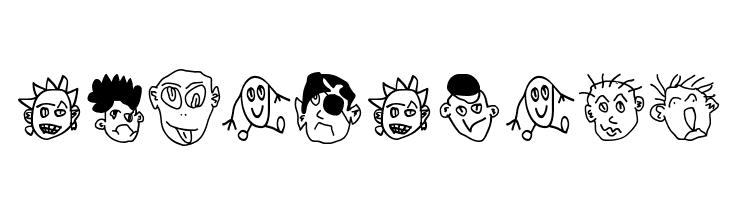
( George Williams - web.archive.org/web/20051223080638/bibliofile.mc.duke.edu/gww/fonts/fonts.html )
A classic, elegant serif font with a humanistic, calligraphic influence.
( George Williams - web.archive.org/web/20051223080638/bibliofile.mc.duke.edu/gww/fonts/fonts.html )
An elegant humanistic cursive font with dynamic serifs and flowing letterforms.
A fluid and elegant script font with medium contrast and dynamic letterforms.
A cursive, handwritten font with elegant, flowing lines and dynamic stroke variations.
( Fonts by Des Gomez )
A playful, bold, hand-drawn font with whimsical decorative elements.
( Fonts by dustBUST - Andreas Nylin )
A bold, geometric font with a futuristic and digital aesthetic.